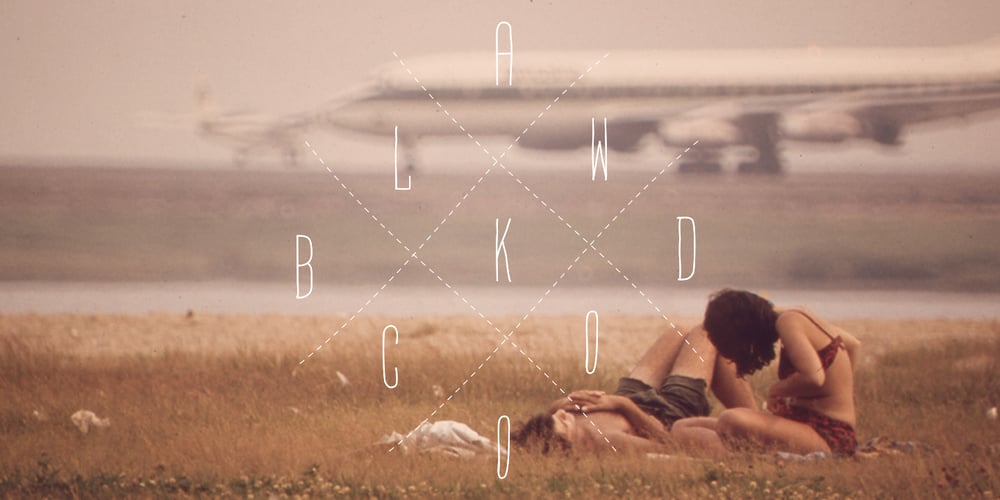
Blackwood
Blackwood font
Blackwood Font Family was designed by David Alexander Slaager and published by Fonts of Chaos. Blackwood contains 3 styles and family package options. Typography made with love by David. Simple hand drawn type, easy to use, with four weights.